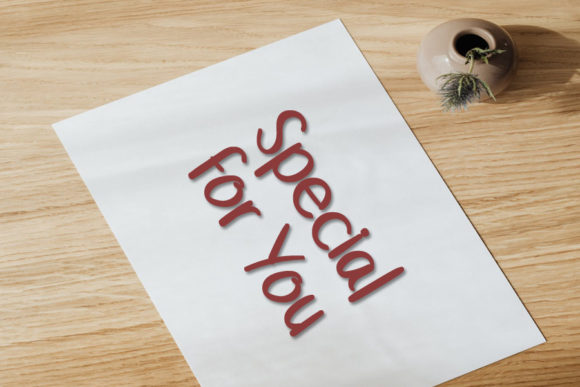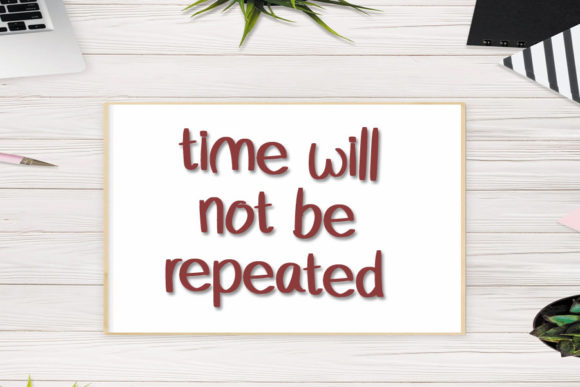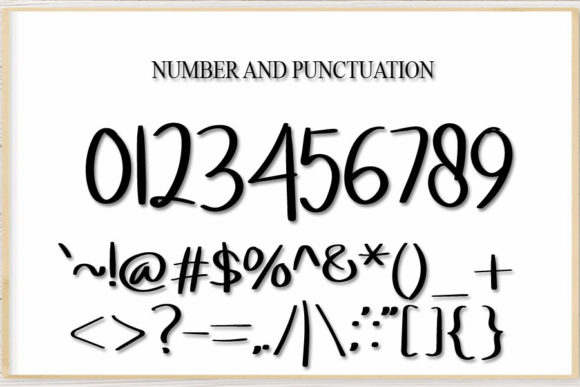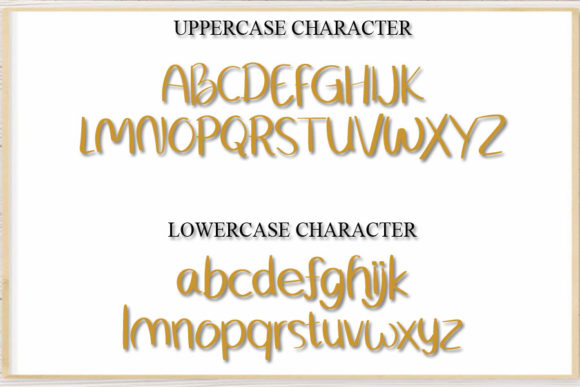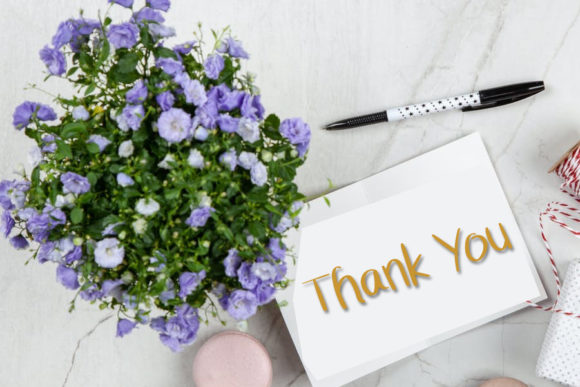
Moment Font
About Moment Font
Moment is a simple, natural and adaptable handwritten font. This gentle font will look gorgeous on a variety of design ideas. It will add a joyful and romantic touch to each of your projects!